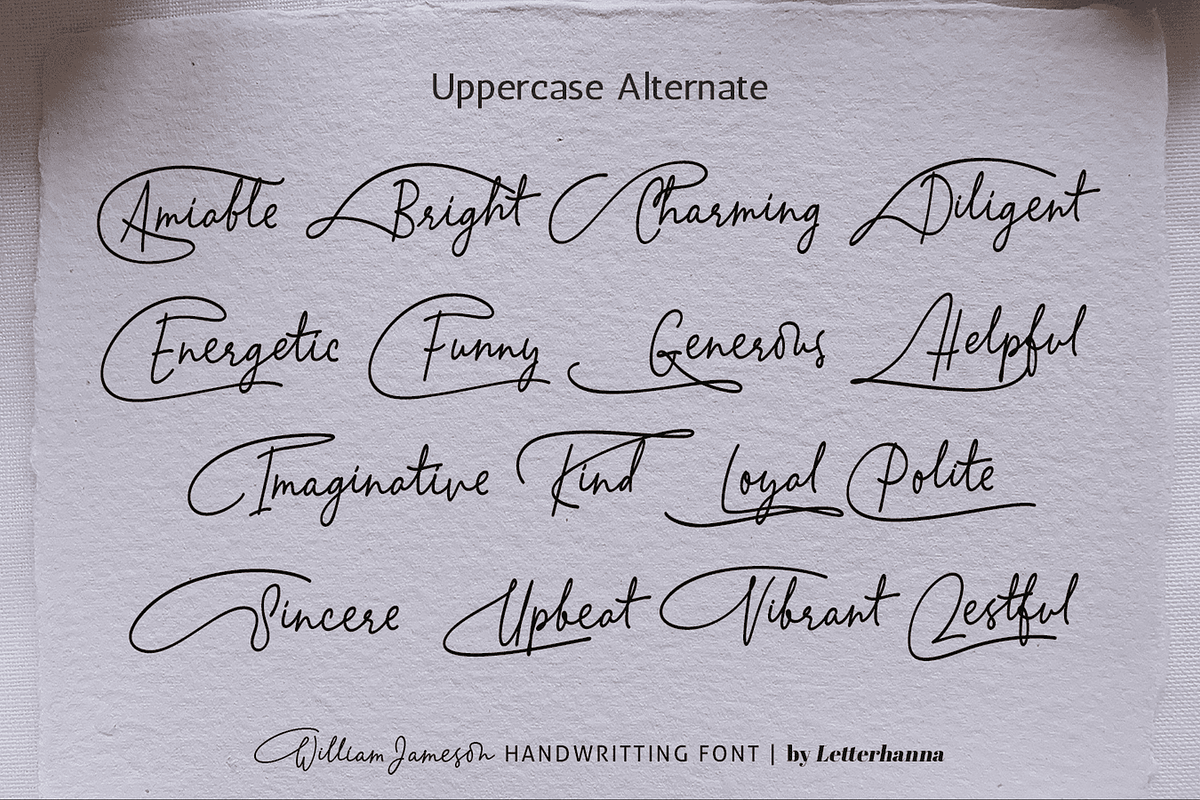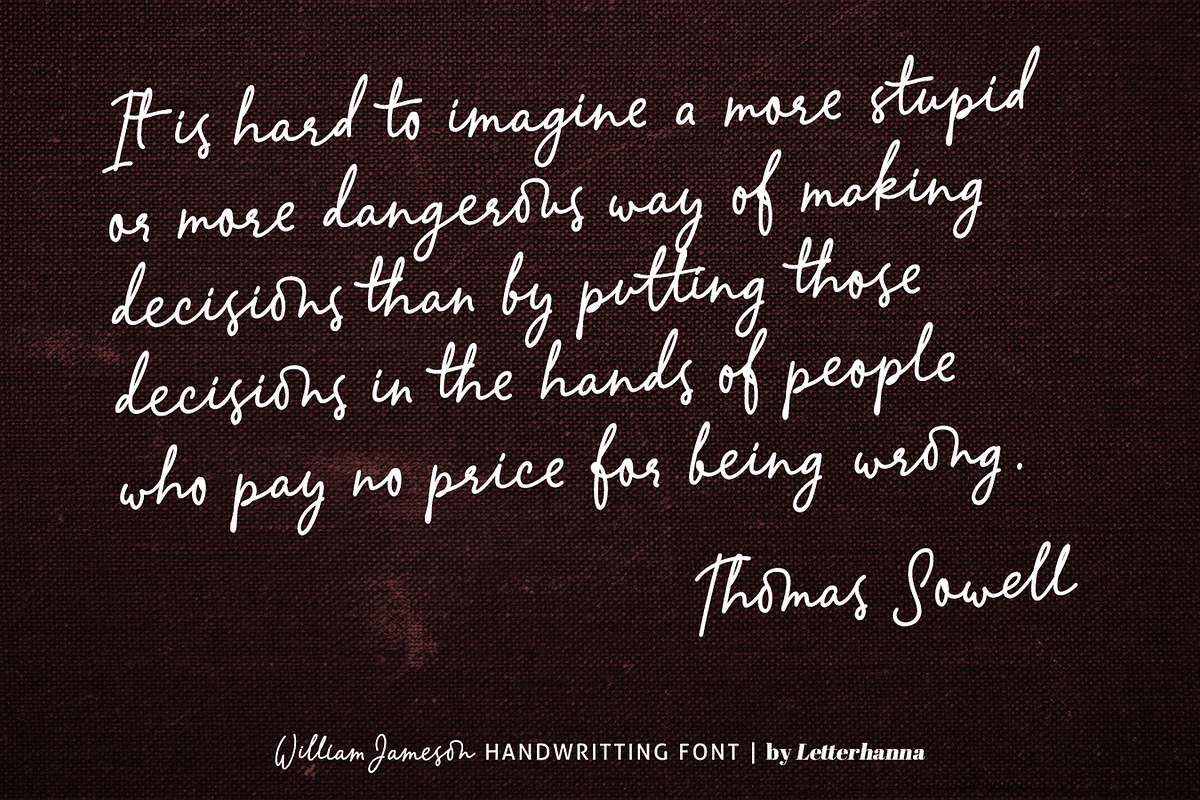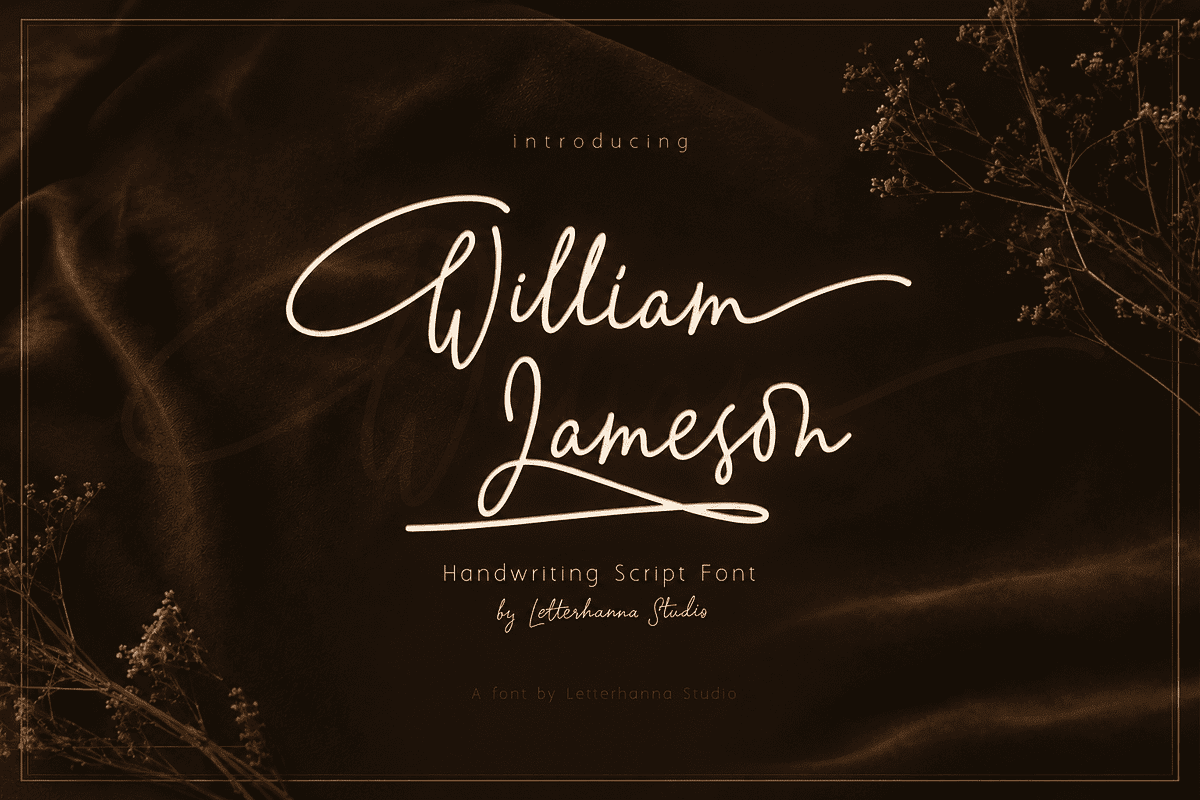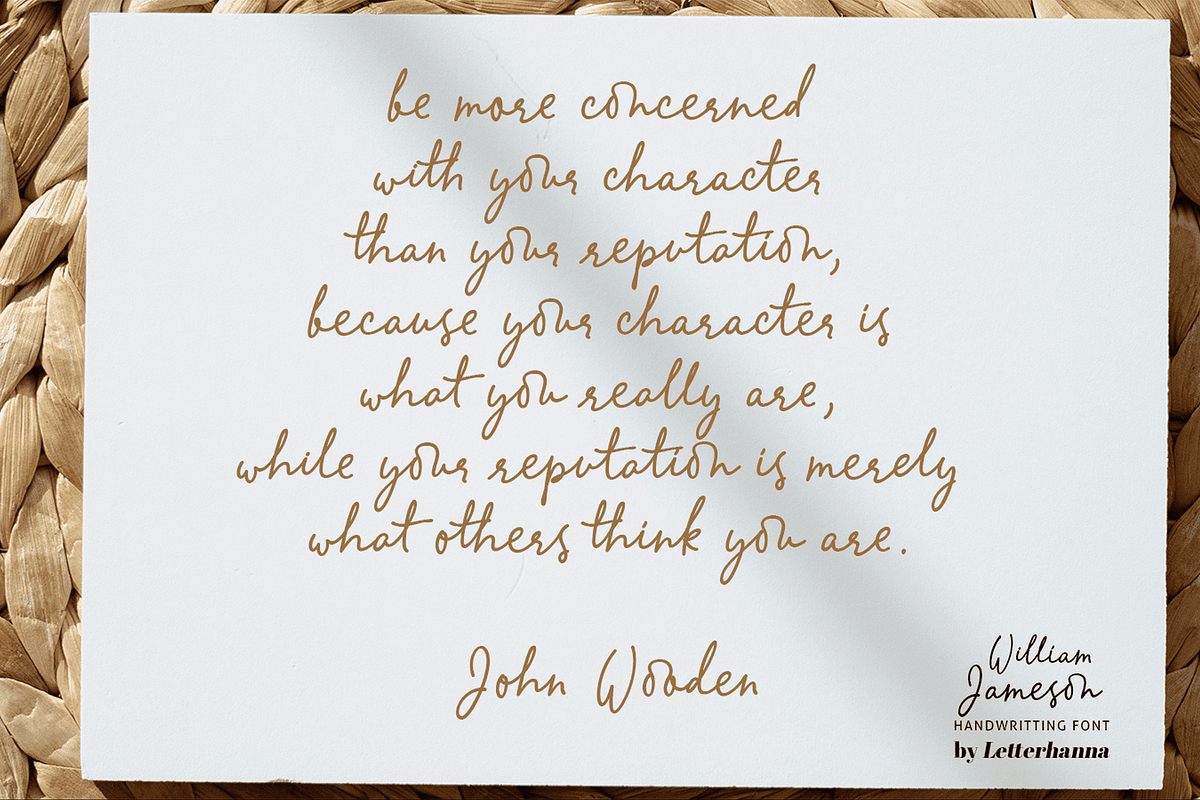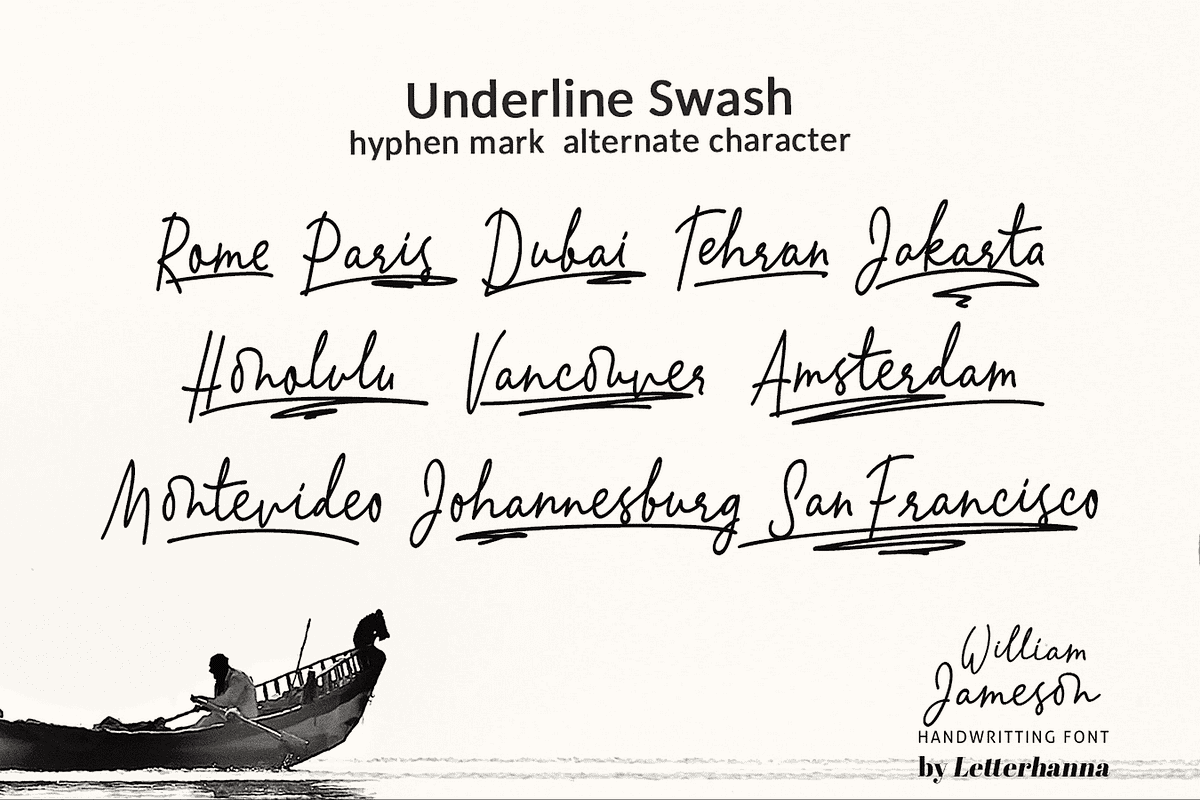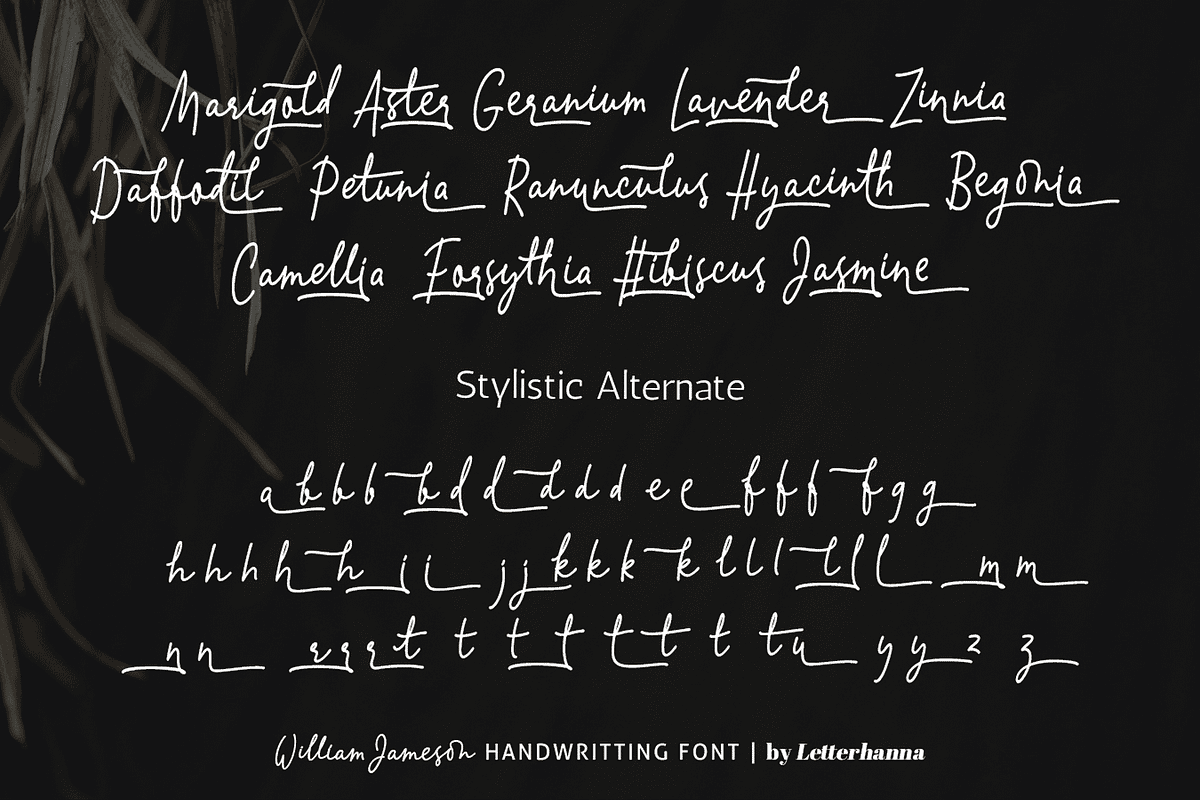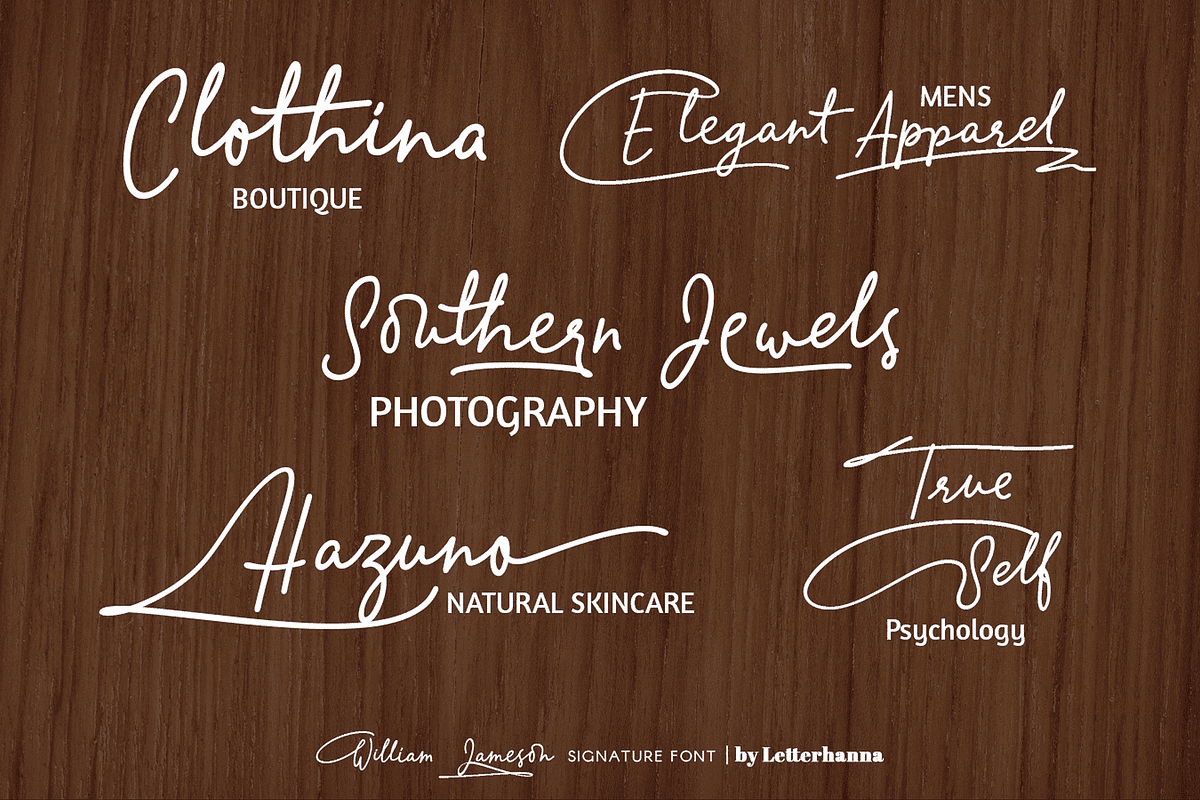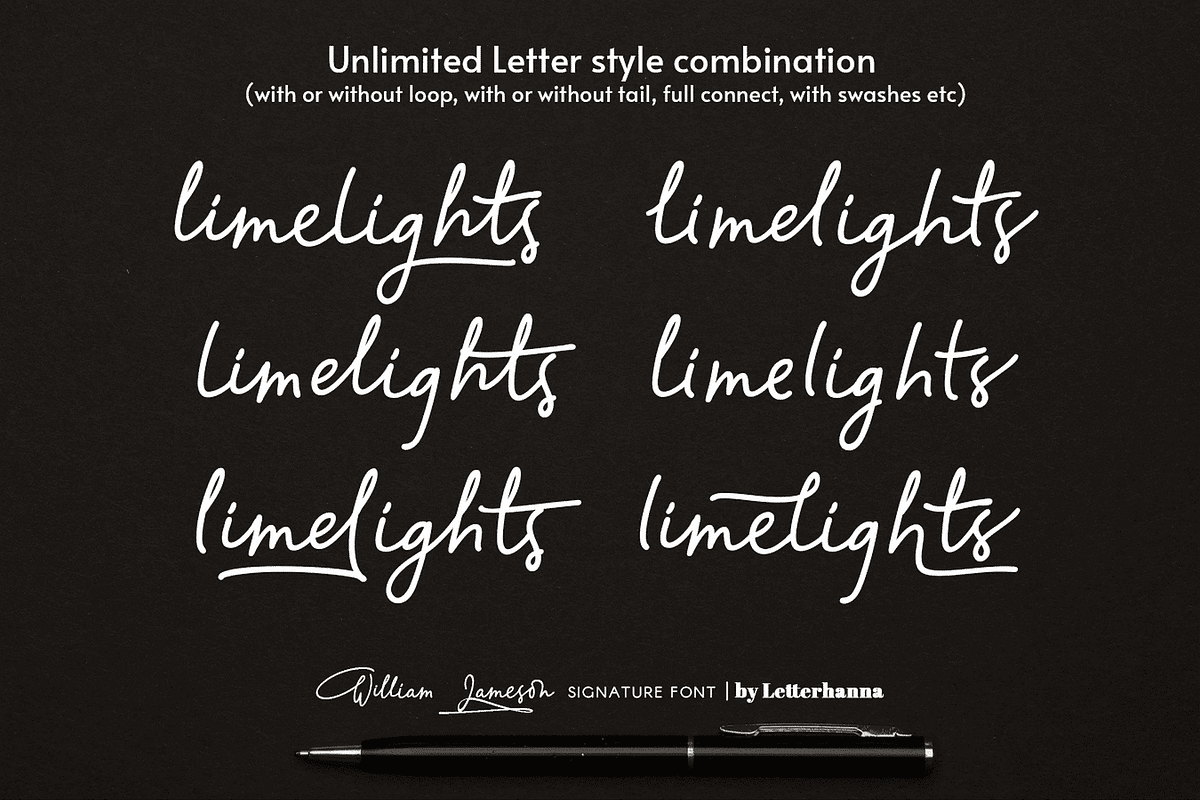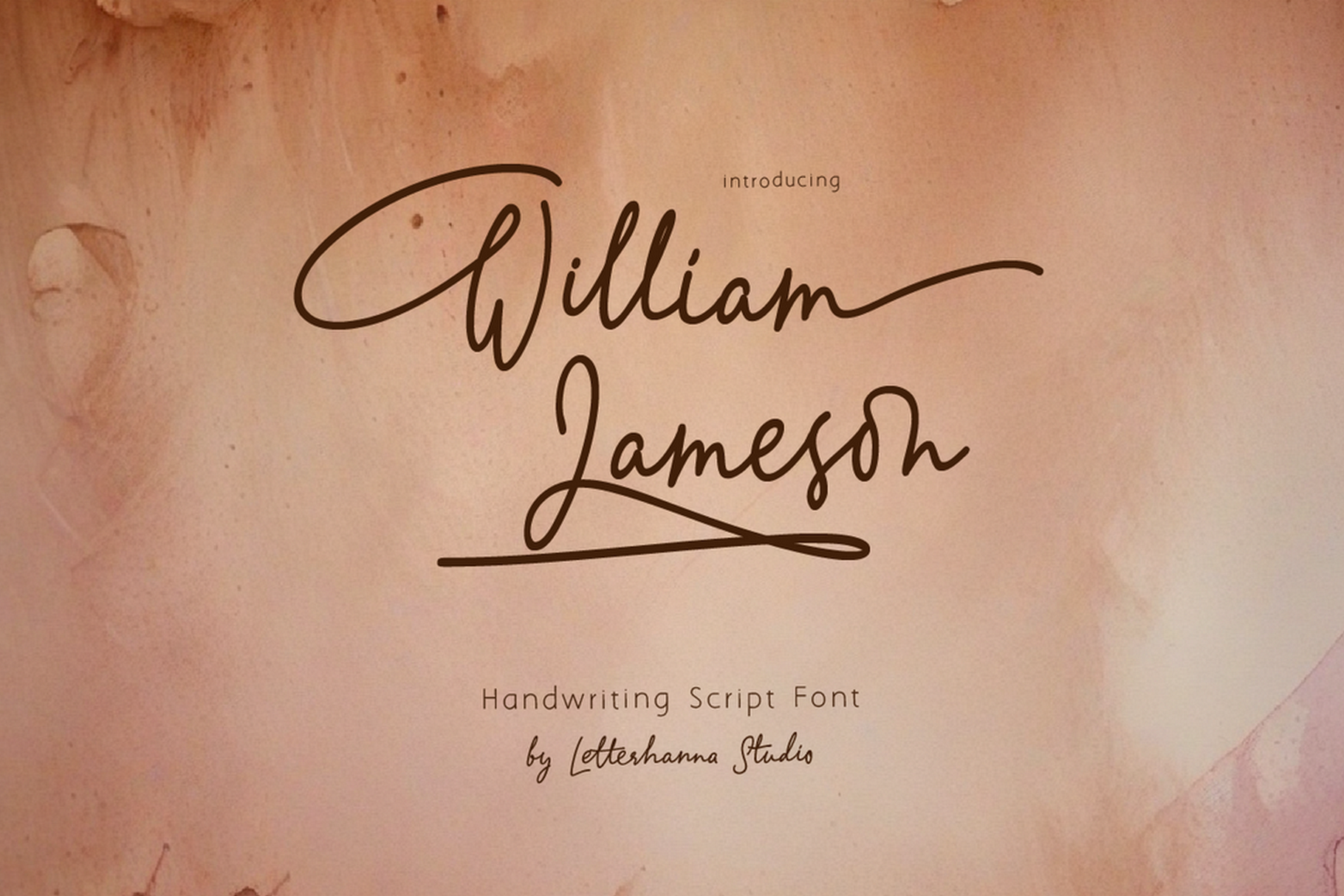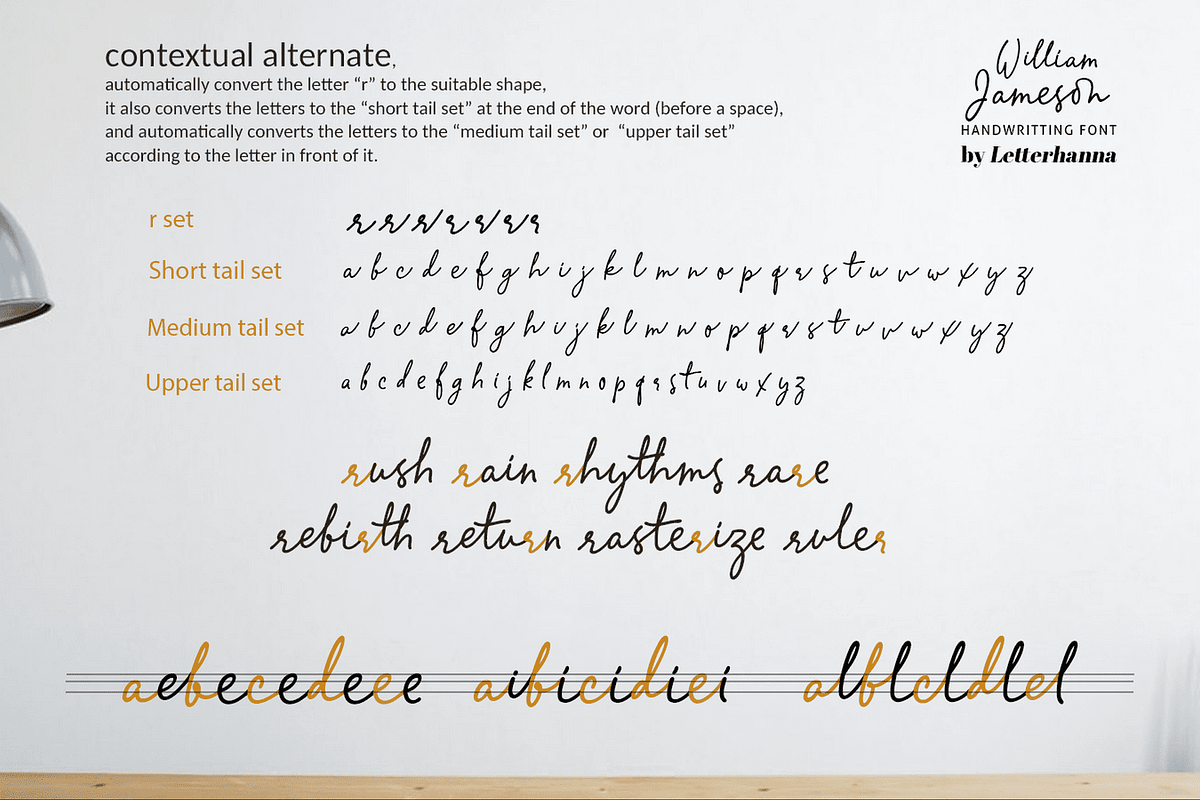
William Jameson Font
William Jameson is a monoline signature handwritten font. Its distinct and well rounded letters make this font a masterpiece. Fall in love with its incredibly versatile style and use it to create spectacular designs!
William Jameson is made using opentype technology which makes the connection between letters more fluid, there are 3 types of tails in each letter that will automatically change according to the letters in front of it.
William Jameson would perfect for photography, watermark, social media posts, advertisements, logos & branding, invitation, product designs, label, stationery, wedding designs, product packaging, special events or anything that need handwriting taste.
William Jameson monoline signature script font contains a full set of lower & uppercase letters, a large range of punctuation, numerals, and multilingual support. There are also 24 underline swooshes included. William Jameson comes with more OpenType features like Stylistic Alternates, Terminal Forms, beginning-of-word swashes and end-of-word swashes.
Beginning and ending swashes
Underline swashes
Stylistic alternate
Contextual alternate
Uppercase alternate